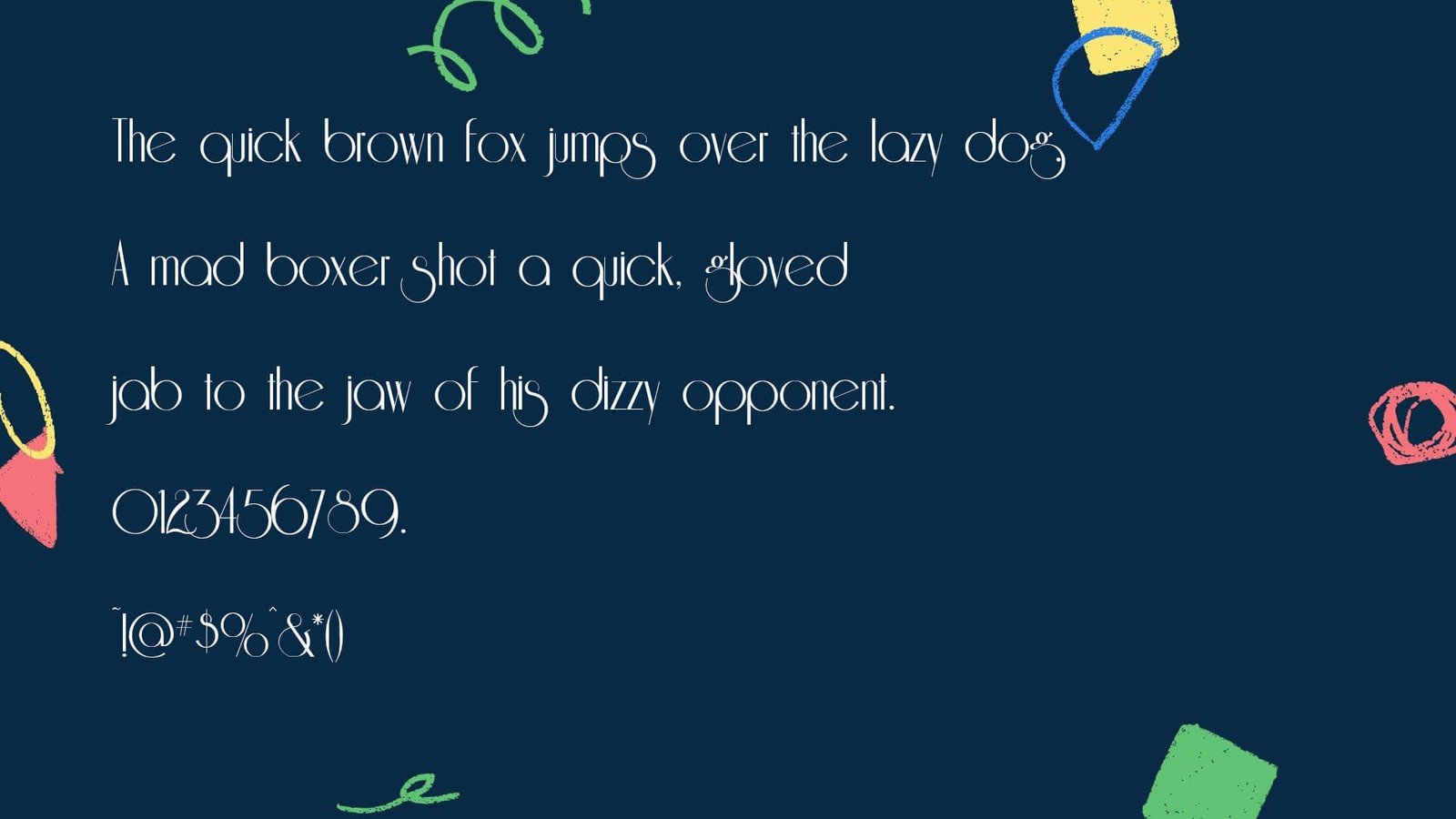
Introducing Riesling Font, a high-quality fancy typeface with a stylish and beautiful texture designed by Bright Ideas. This elegant font was released by the designing foundry in May 2008.
This font style comes with one family of its own Regular and this single version contains 234 characters and 241 glyphs.
The texture of this font style is very decorative. This typeface has a unique and different style that can be understood only by the pro designers.